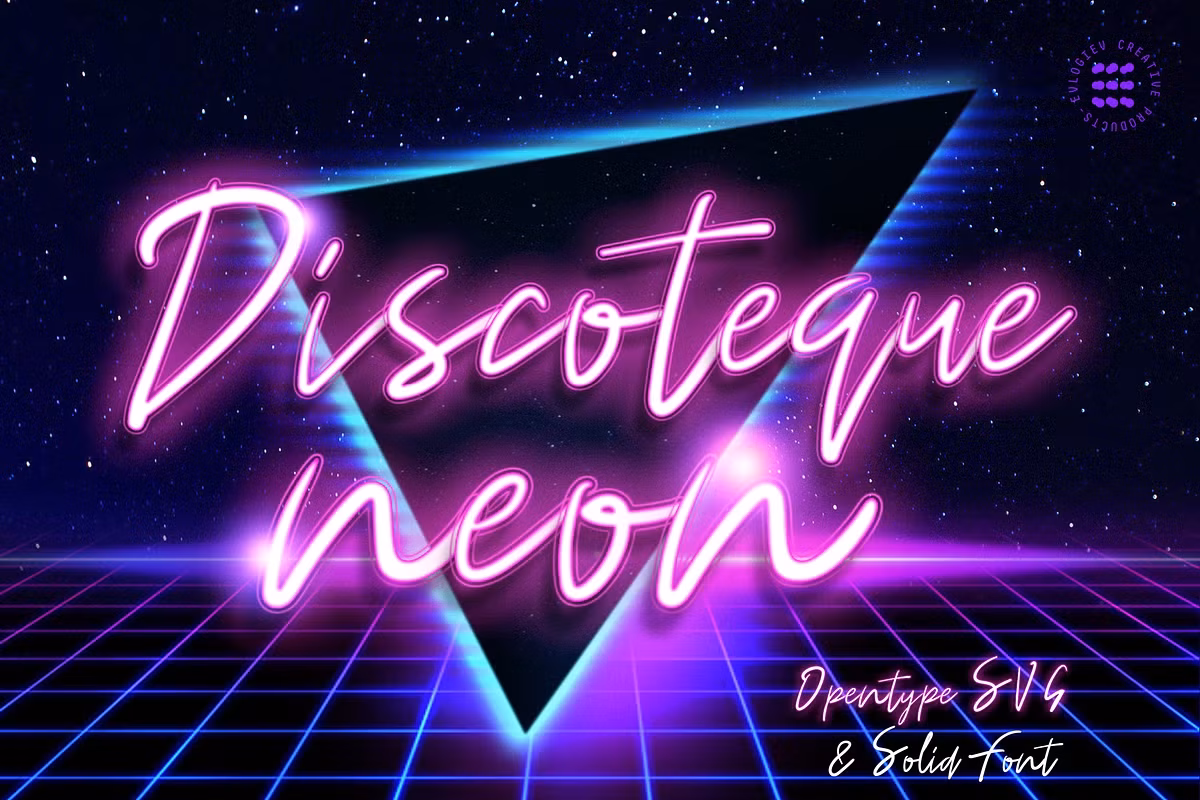
Discoteque – Neon Font Free Download is a bold, glowing typeface inspired by retro nightlife, neon lights, and electric energy. Please note, you are required to purchase this font for commercial use. It is available for free download for testing and personal projects only.
With its vibrant curves, illuminated lines, and flashy style, Discoteque is perfect for party flyers, club posters, music events, YouTube thumbnails, signage, and anything that needs a touch of nostalgic nightlife. It channels the vibes of the '80s and ‘90s with a modern digital twist.